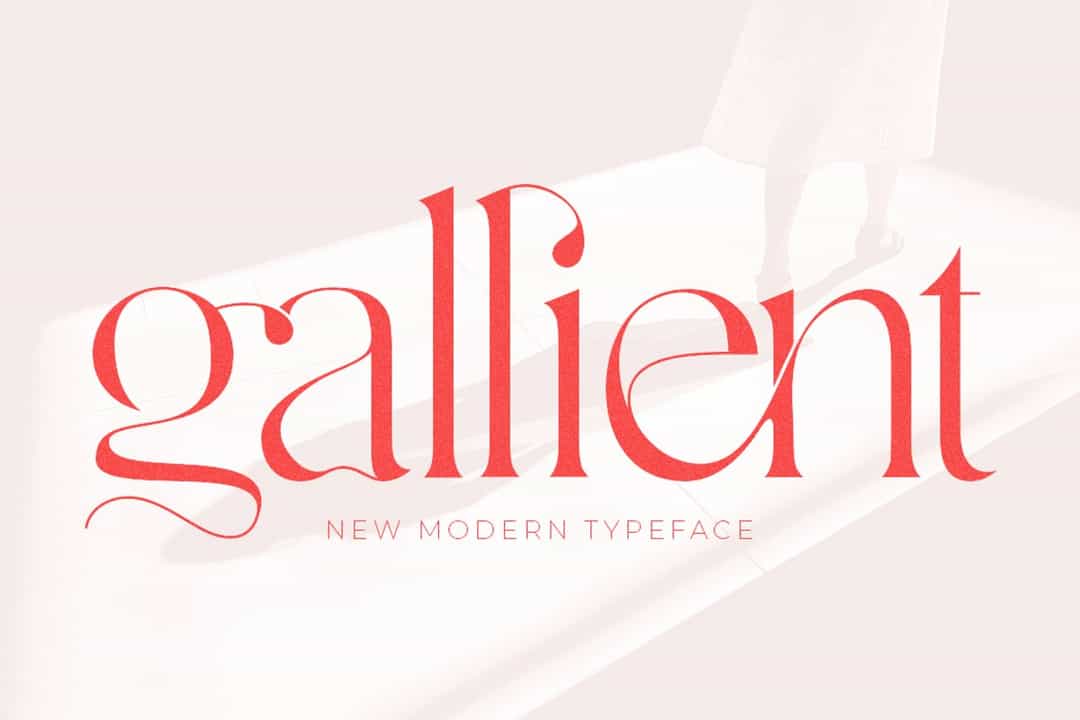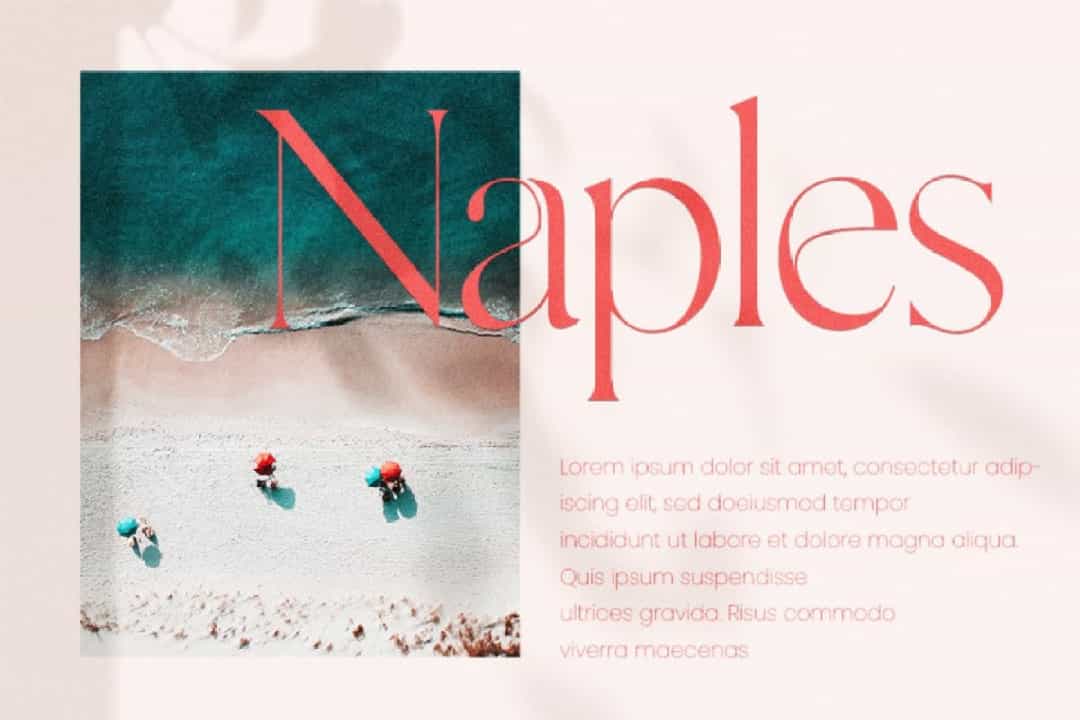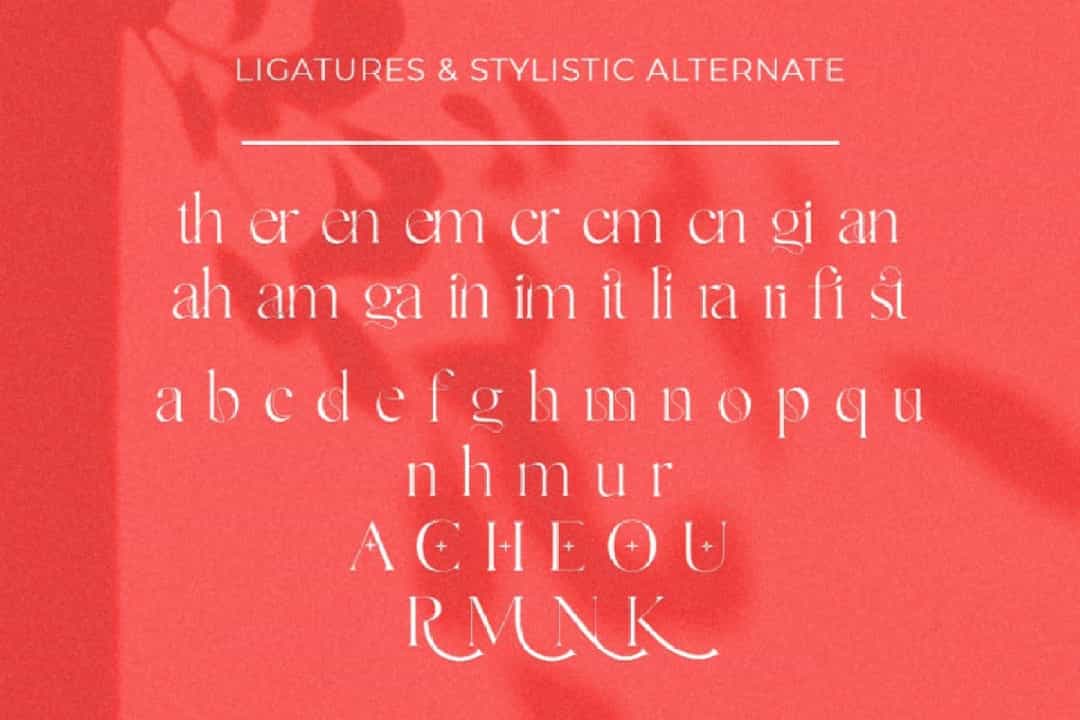
Gallientis is a contemporary serif-based display font. We are delighted to introduce it as part of your next brand endeavor or business need, providing the authentic feel of handcrafted typography. Gallient has a clean edge while providing authentic handcraft aesthetic.